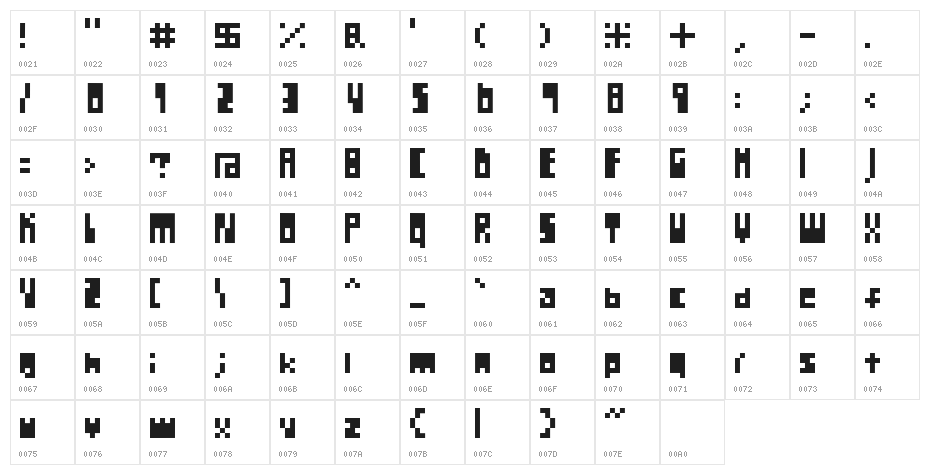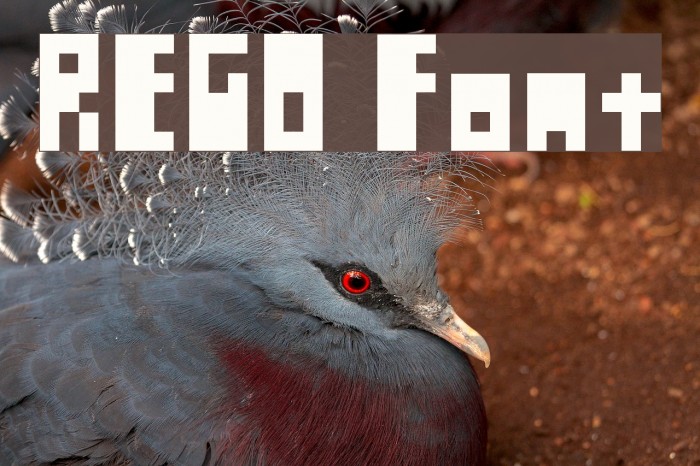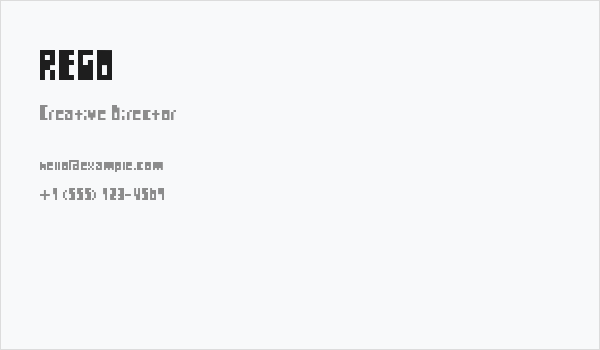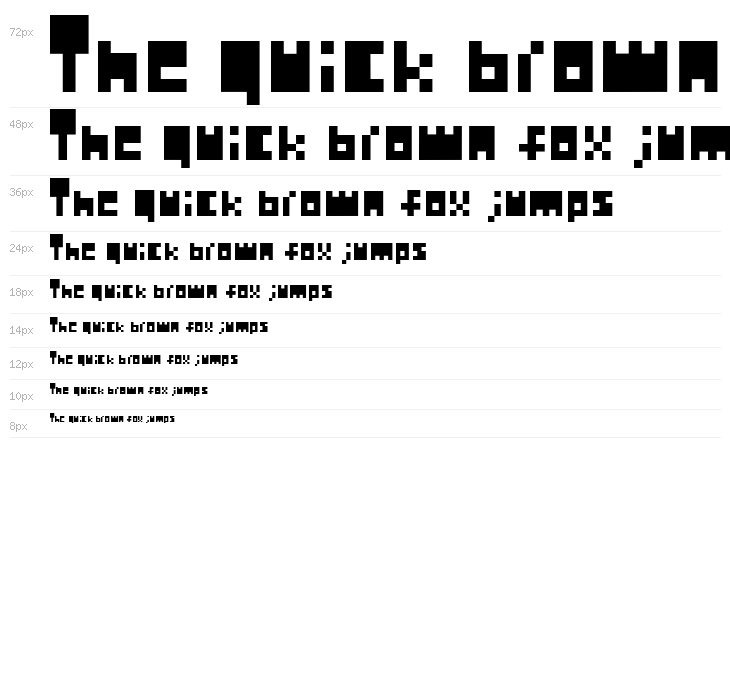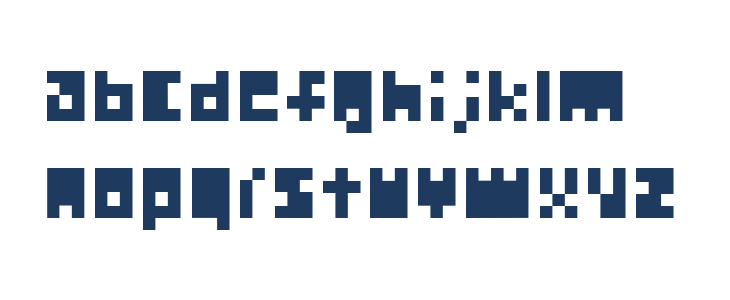
REGO Font
REGO Description
This font features a bold, blocky design with a pixelated aesthetic reminiscent of early digital displays or retro video games. Each character is constructed with sharp, angular edges and uniform stroke widths, giving it a distinctly geometric appearance. The uppercase and lowercase letters maintain a consistent height, contributing to a cohesive and structured look. Numbers and special characters follow the same design principles, ensuring visual harmony across all elements. The font's style is both modern and nostalgic, making it suitable for projects that aim to evoke a sense of digital or retro-futuristic themes.
| Overall Style | Modern, Retro |
| Proposed Projects | Ideal for video game design, digital art projects, retro-themed posters, and tech-related branding. |